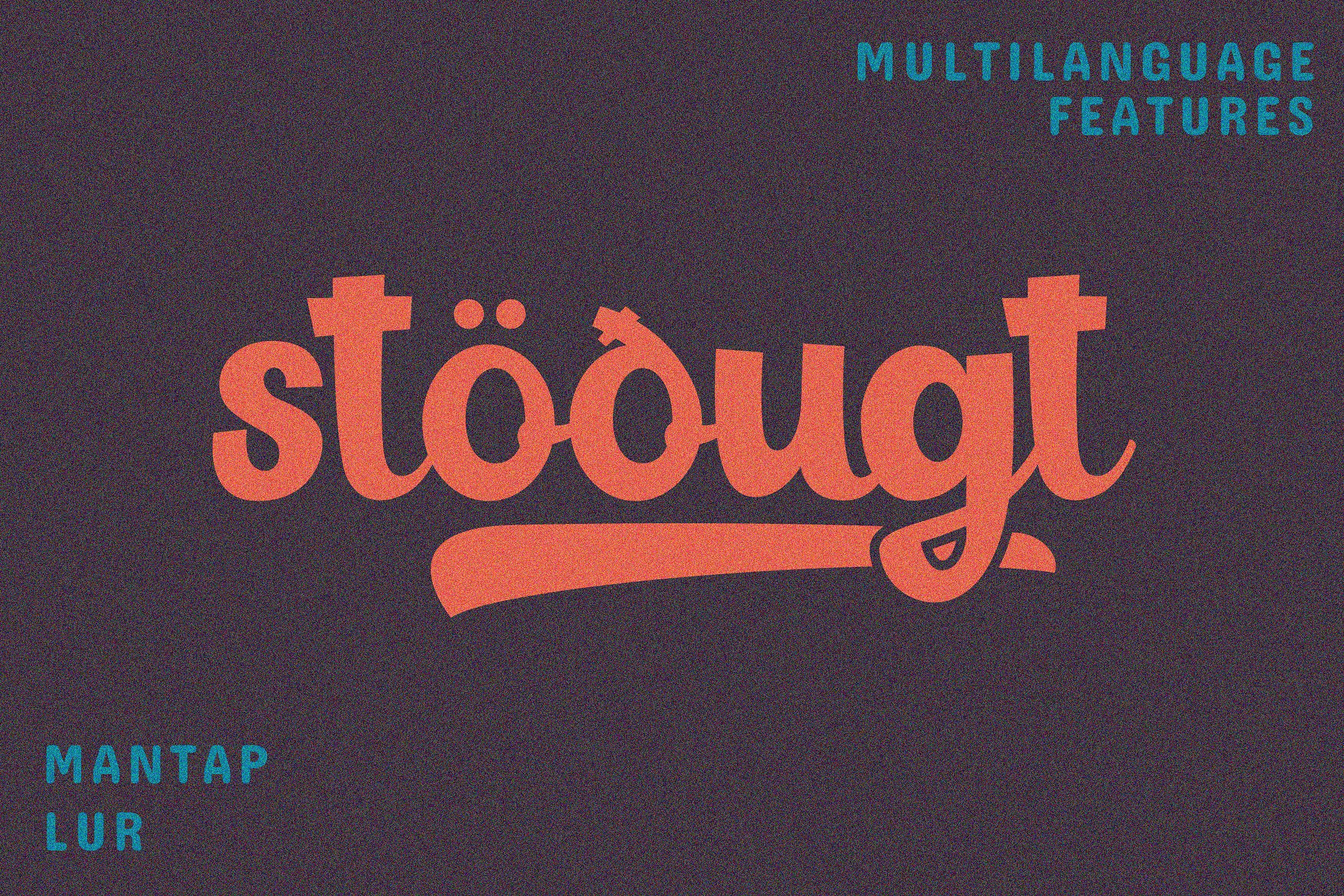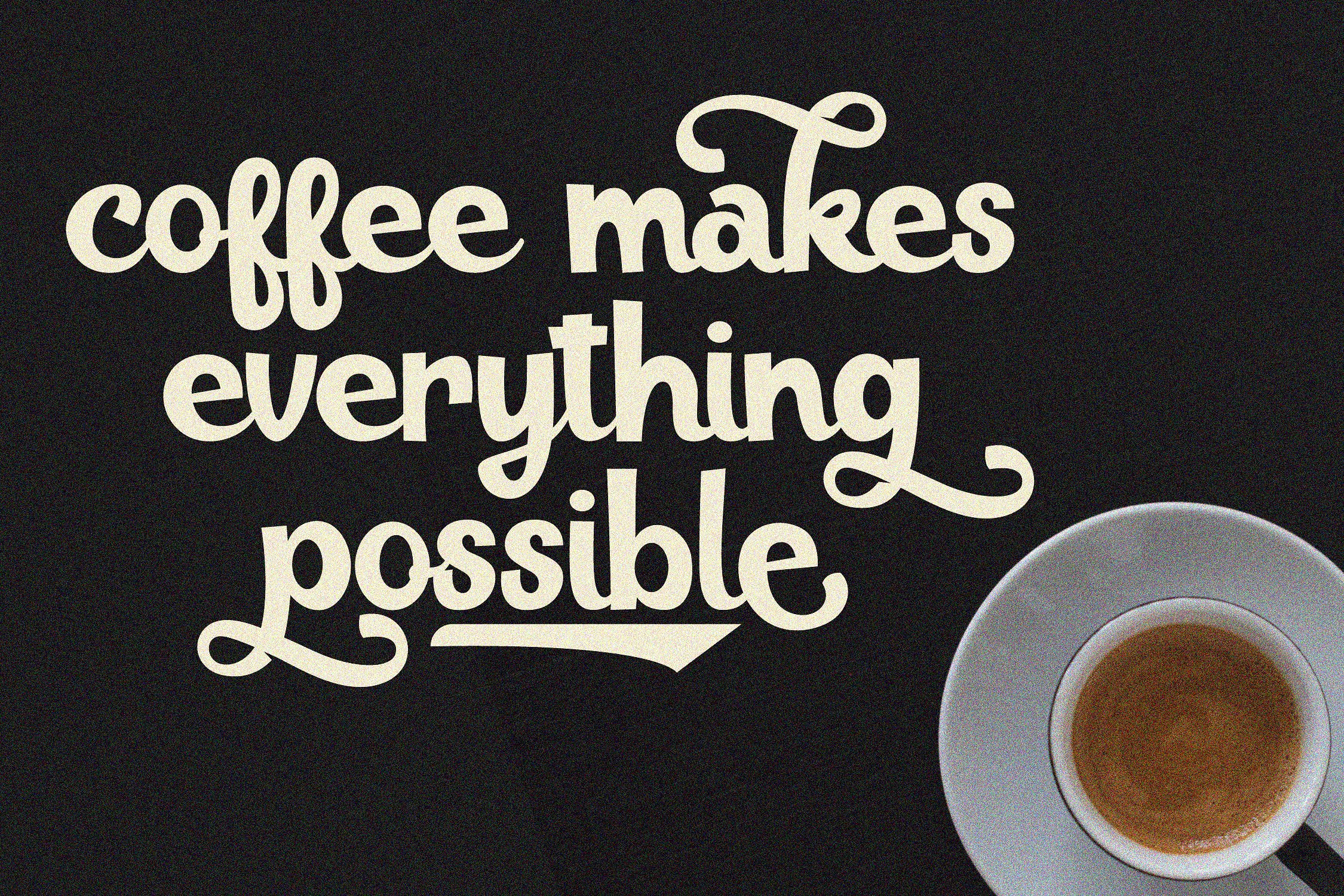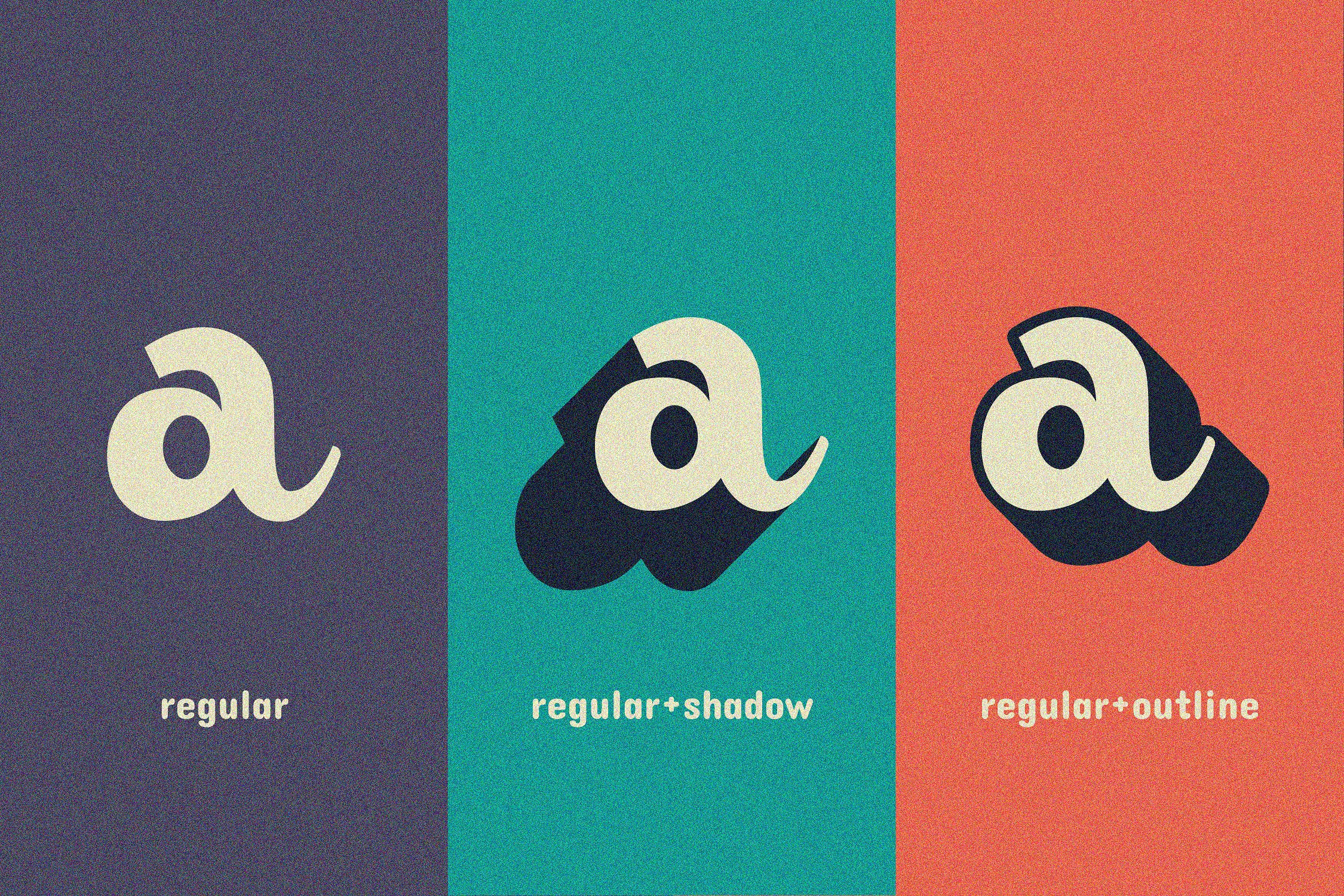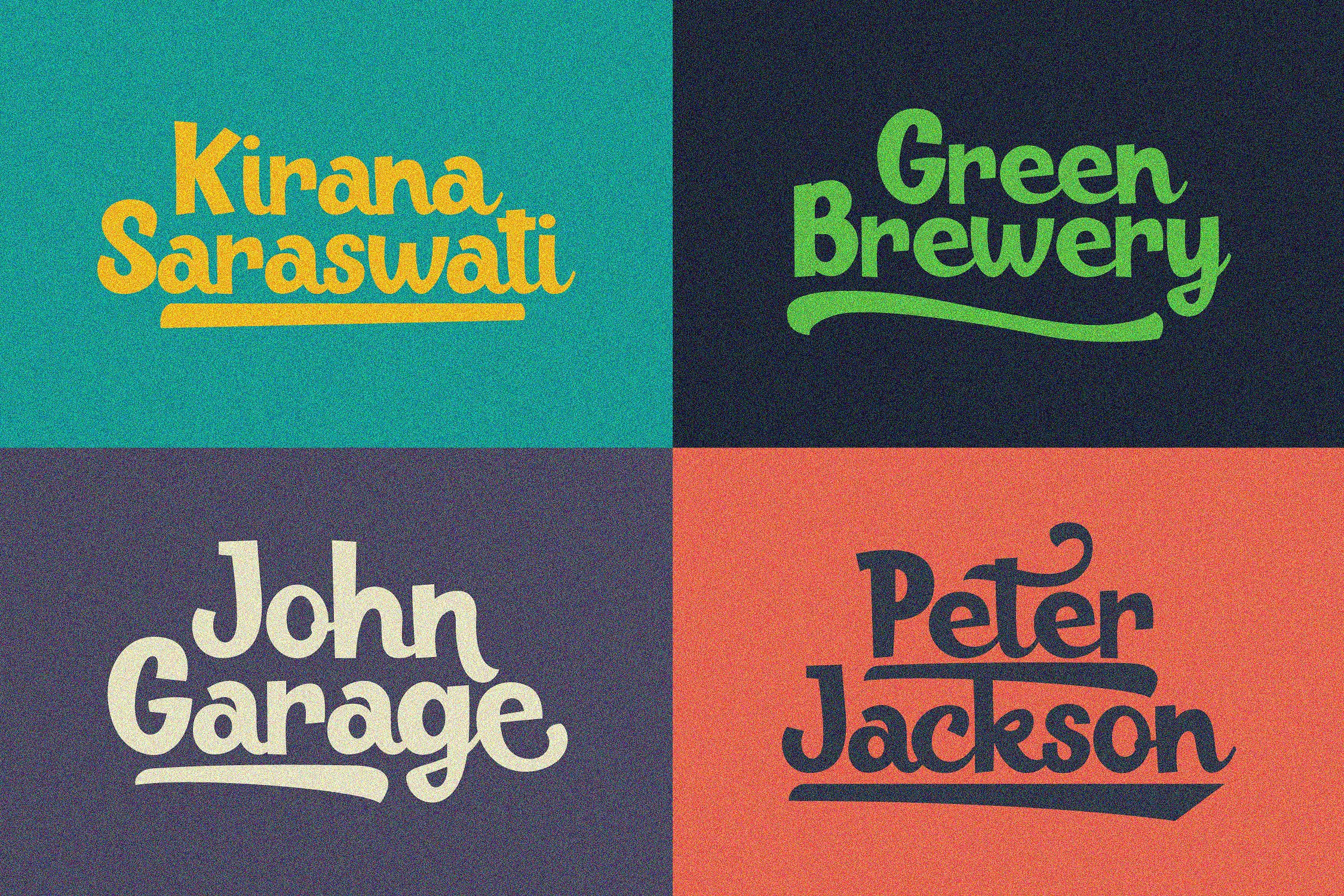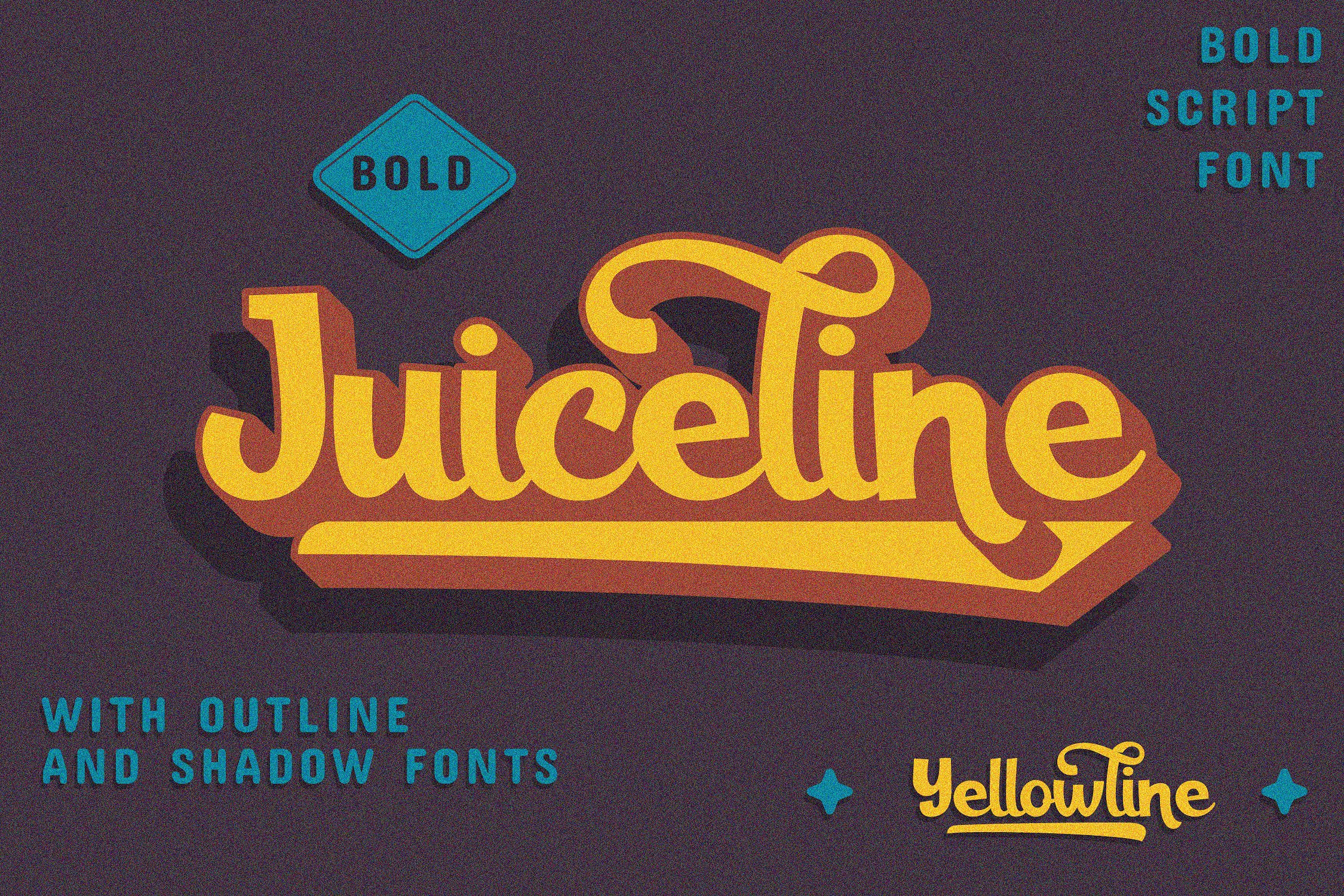
Juiceline Bold Script Font
Now we are proudly presenting you a bold script font which will satisfy all your design needs. Introducing Juiceline Font. It is designed by yellowline. Juiceline is bold script font with outline and shadow fonts. The font is equipped with opentype features. Which is including alternative characters such as : contextual alternates, stylistic alternates, and swash variant.